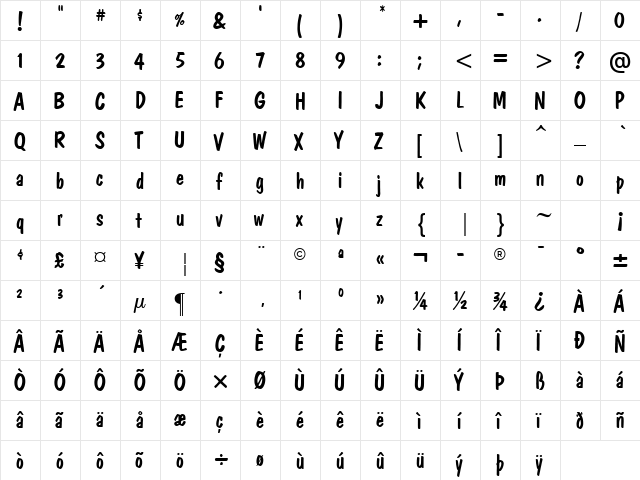
Dom Very Casual Regular Font Preview
Dom Very Casual Regular
Design Context for Dom Very Casual Typeface
Dom Very Casual is a composed and adaptable typeface that performs quietly and consistently across a wide range of design contexts.